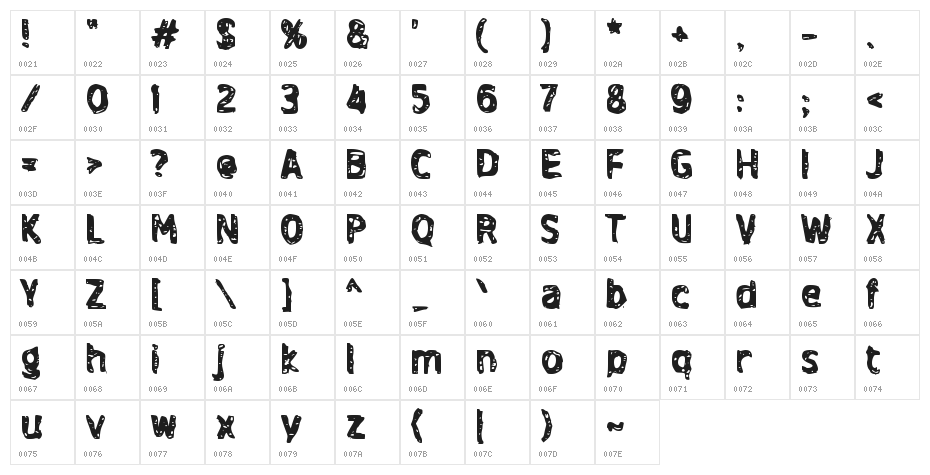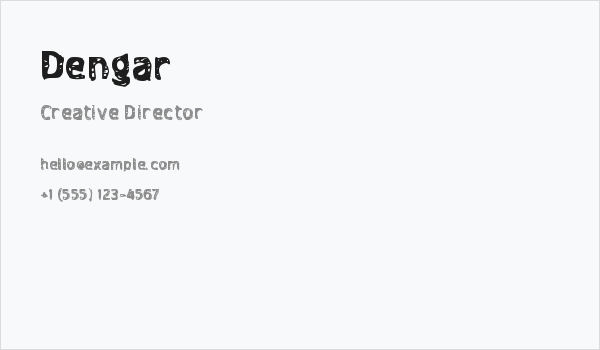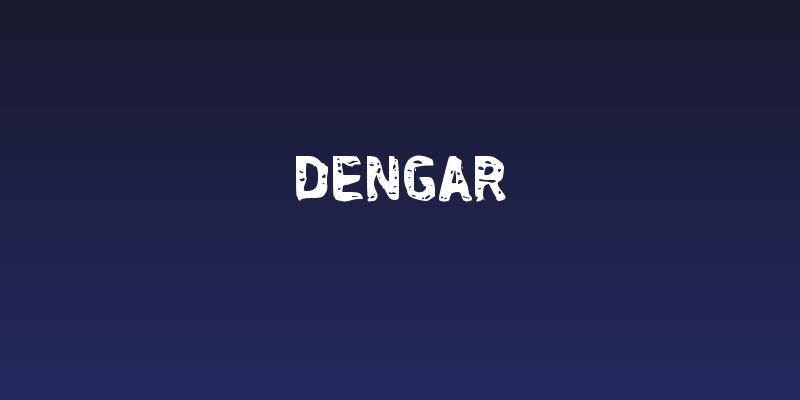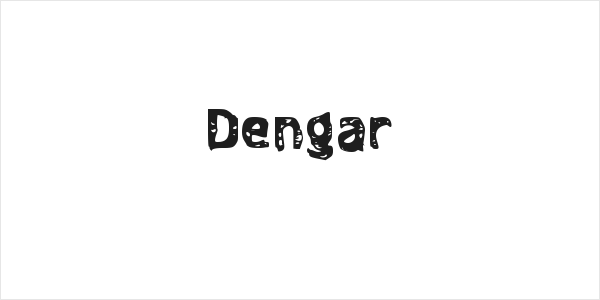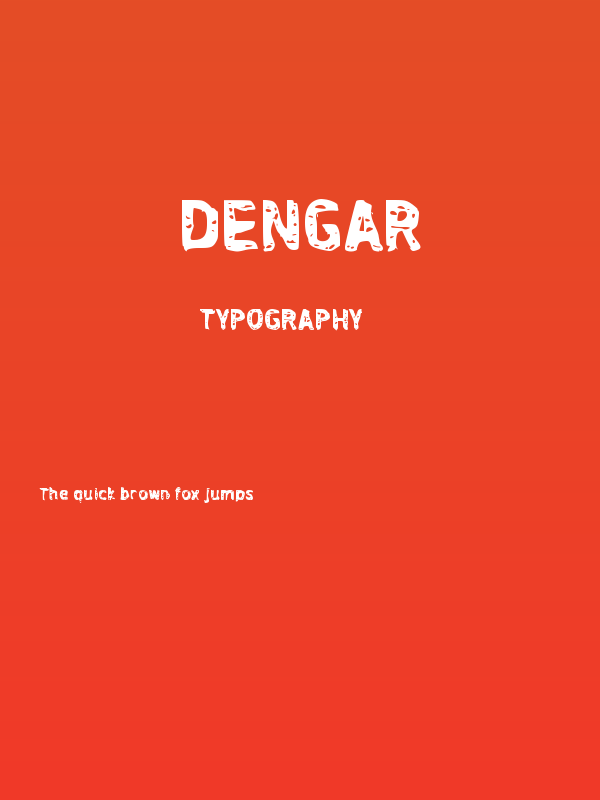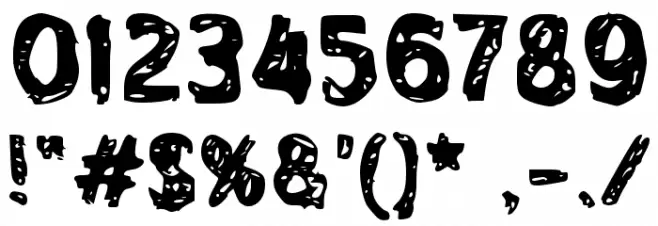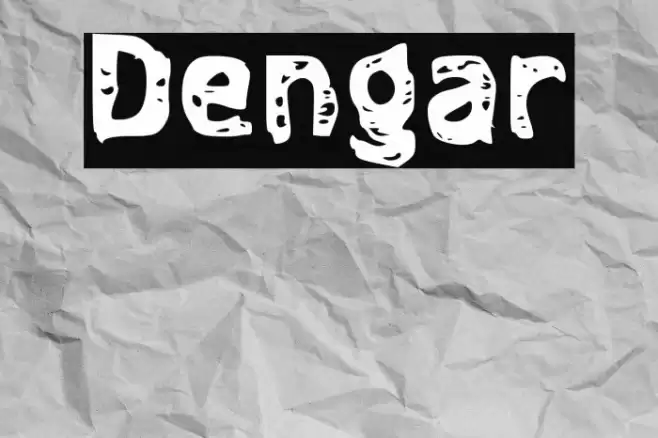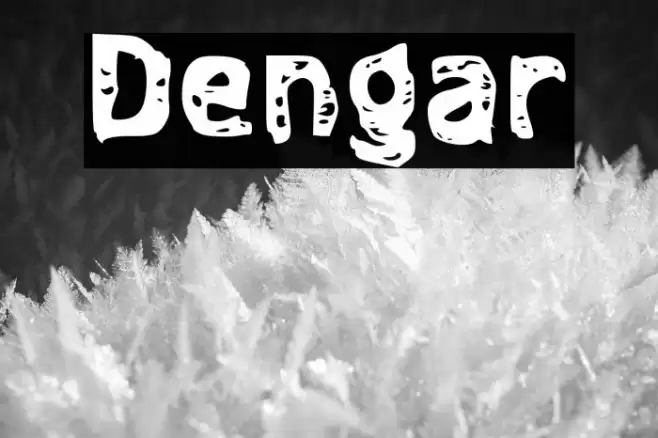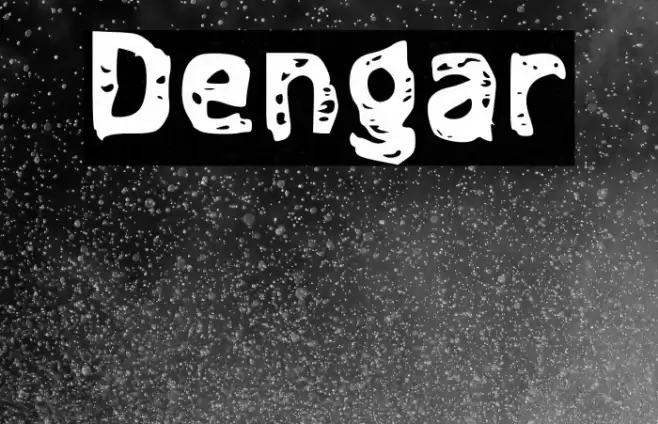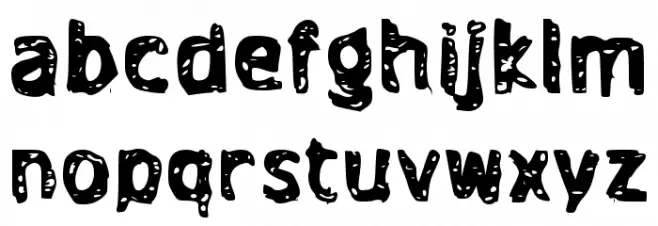
Dengar Font
Dengar Description
This font features a bold and playful design with a distressed texture that gives it a unique, hand-crafted appearance. The characters are irregularly shaped, with varying thicknesses and small cut-out details that add to its quirky and artistic style. The uppercase and lowercase letters maintain a consistent height, while the numbers and special characters follow the same playful aesthetic. This font is perfect for projects that require a fun and informal touch, such as children's books, posters, or creative branding.
DENGAR UPPERCASE
DENGAR LOWERCASE
DENGAR OTHER CHARS
| Overall Style | Playful, Artistic |
| Proposed Projects | Ideal for children's books, creative branding, posters, and informal designs. |